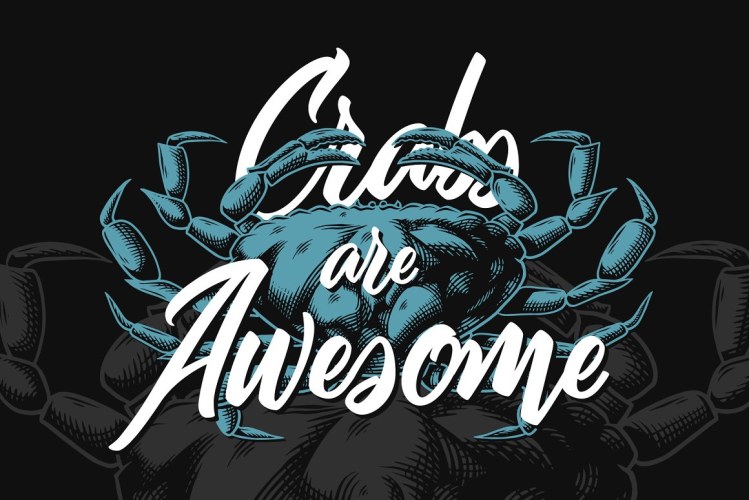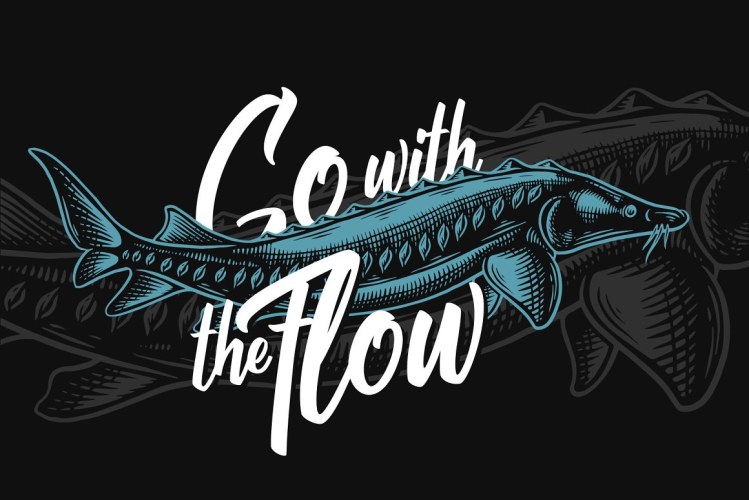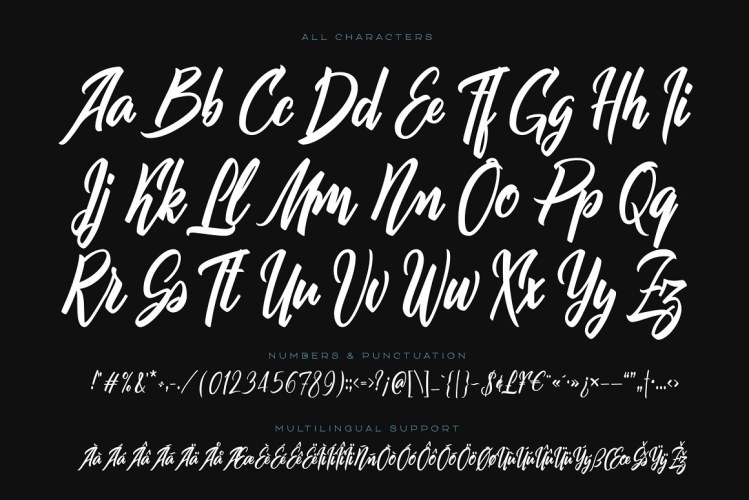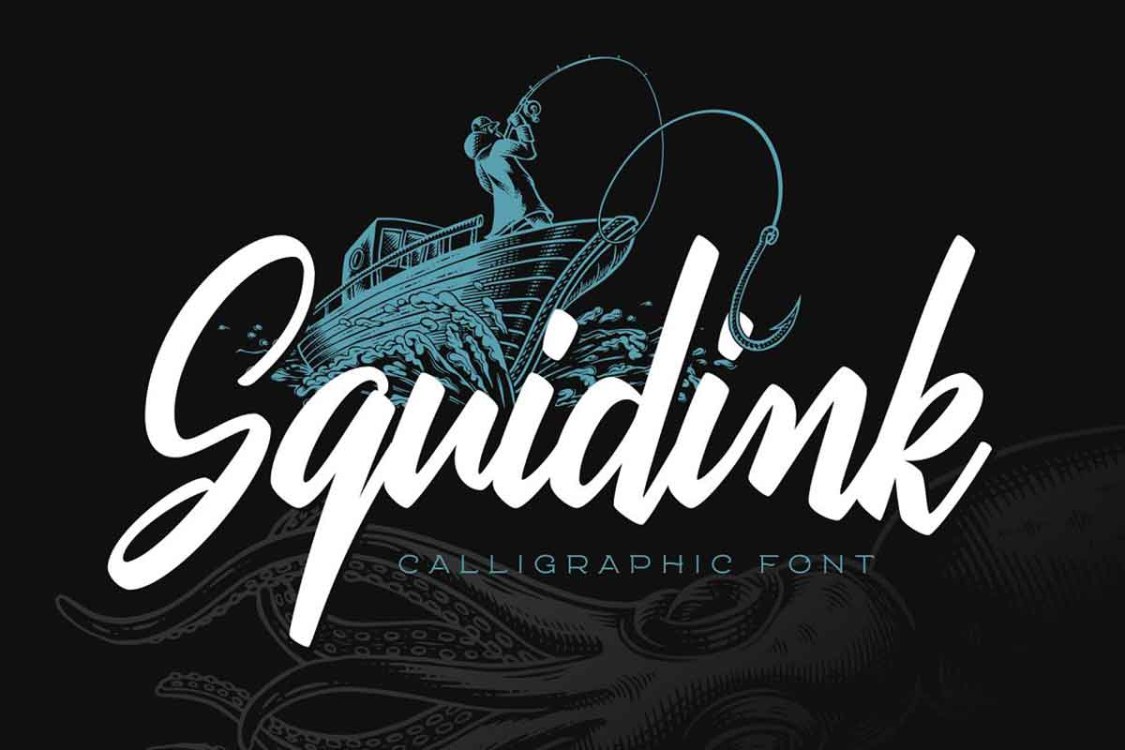
Squidink Font
Hi. Introducing a calligraphic script font named Squidink. This smooth font is perfect for lettering with lot’s of ligatures and multilingual support. This set contains…
Hi. Introducing a calligraphic script font named Squidink. This smooth font is perfect for lettering with lot’s of ligatures and multilingual support. This set contains also four marine themed handmade illustrations of sea creatures and fishing boat.
Where Squidink Font works best
Squidink Font brings a personal, handwritten warmth to invitations, menus and place cards.
Craft brands — coffee, cosmetics, bakery — use scripts like Squidink Font for signature-style logos and labels.
Pair Squidink Font with a plain sans for quotes, stories and Pinterest pins that feel handmade.
What is Squidink Font good for?
Squidink Font is a Script And Handwritten typeface tagged Calligraphy, Handwritten, Professional, Script. It works well for headlines, logos, posters, social media graphics and branding projects that need a distinctive script and handwritten look.